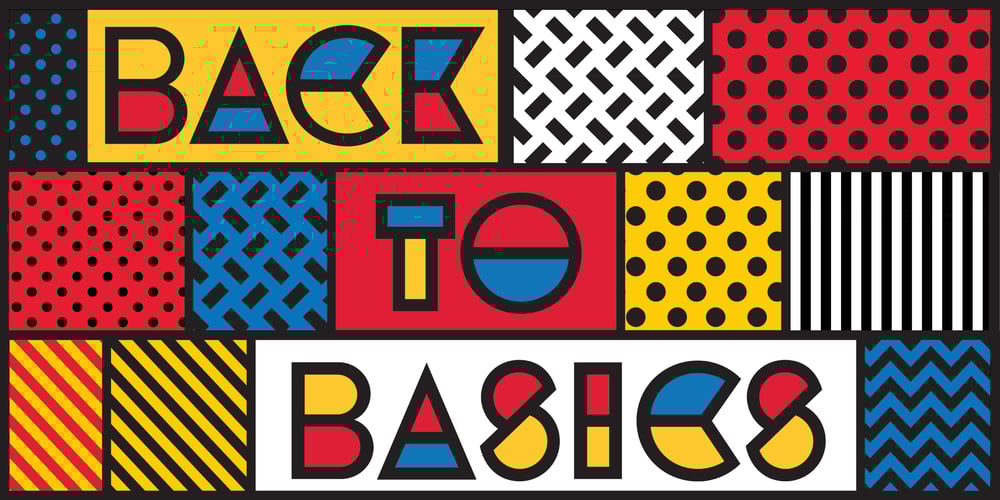
Utopian
Utopian font
Utopian Font Family was designed by Alex Trochut and published by Sudtipos. Utopian contains 4 styles and family package options. UTOPIAN is a color font family based on primary colors and pure geometric shapes, influenced by Bauhaus, DeStijl and Art Deco. Its pure shapes and basic colors are inspired by the beauty of simplicity of modular order and grid, creating a perfect environment where all these elements live in a perfect color harmony. In the other hand, DYSTOPIAN, the black and white family, represents a close sibling in appearance and structure, that carries an opposite meaning, with a darker look and feel. Both typefaces are, somehow, a reflection of the divided views and posible outcomes that the future times ahead yield before us. Package: Utopian/Dystopian comes in file with a pre-defined color palette. You can always change the colors converting the text to outlines. Technical info to use: The package contains a normal TTF/OTF set of fonts in Black and White and a colorfont in SVG-TTF format. To be able to use the color file you need to have installed Adobe Photoshop CC2017 or Adobe Illustrator CC2018. Not all the browsers support color fonts so please be sure to use them as graphics.